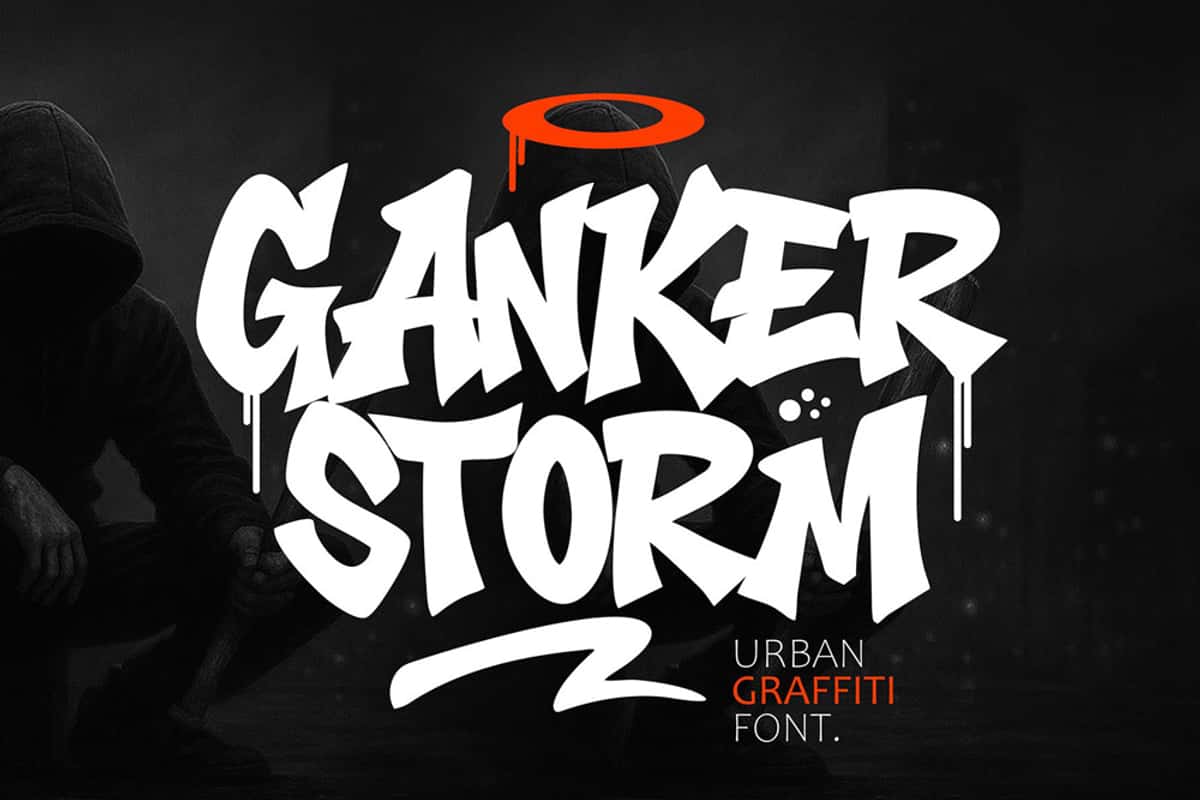
Ganker Storm
Ganker Storm is a wild graffiti font created for designers who want explosive energy and authentic street character in their work. With bold aggressive strokes, sharp angles, and a natural brush rhythm, Ganker Storm captures the raw motion of real tagging and street lettering. The letter shapes feel fast, loud, and expressive, making it the ideal choice for high-impact visual projects. This font comes with uppercase letters, numbers, punctuation, multilingual support, and a complete Swash versi